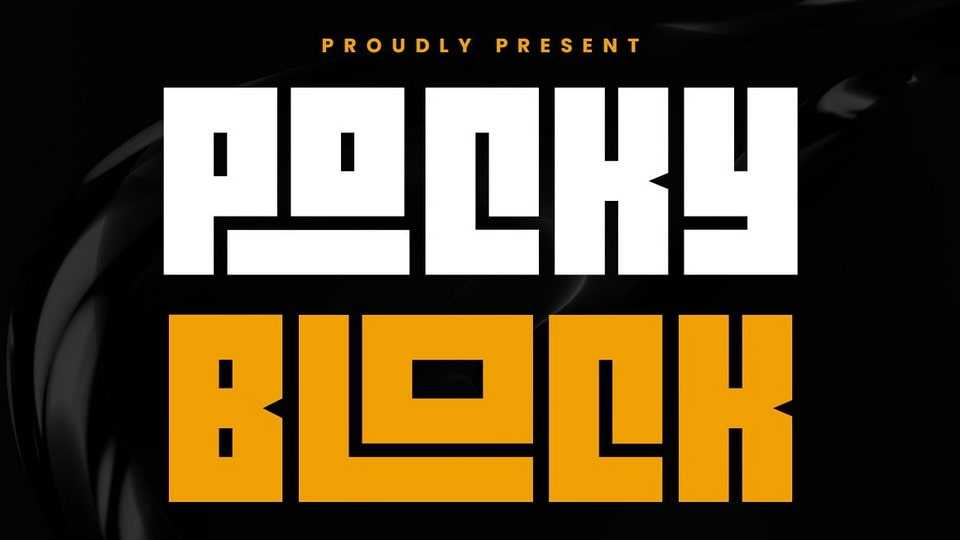
Download Pocky Block font, a display typeface that’s bold and blocky with elegant and modern design. Pocky Block font exudes a sporty, assertive, and daring vibe, making it a perfect fit for designs with sports, adventure, or futuristic themes.